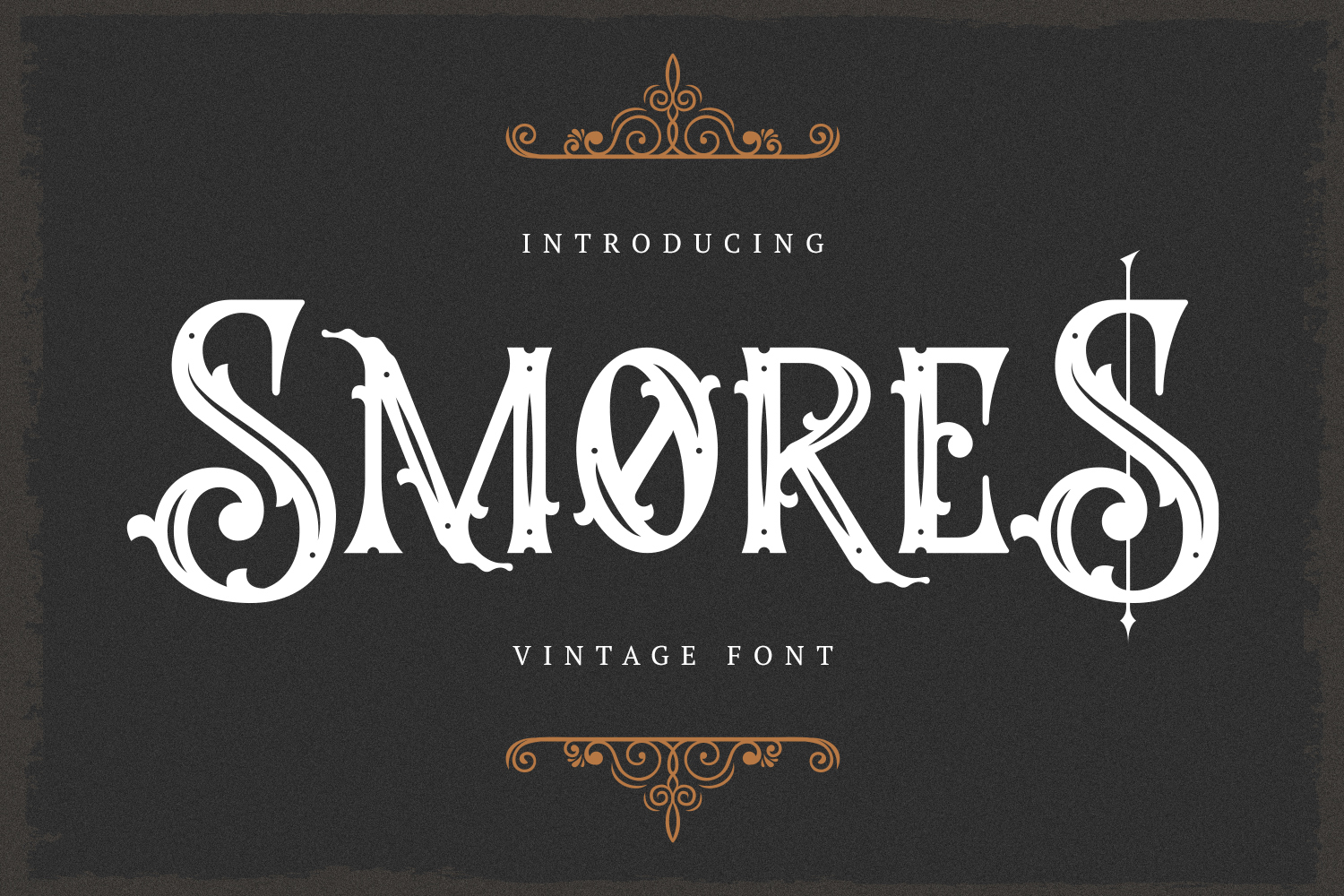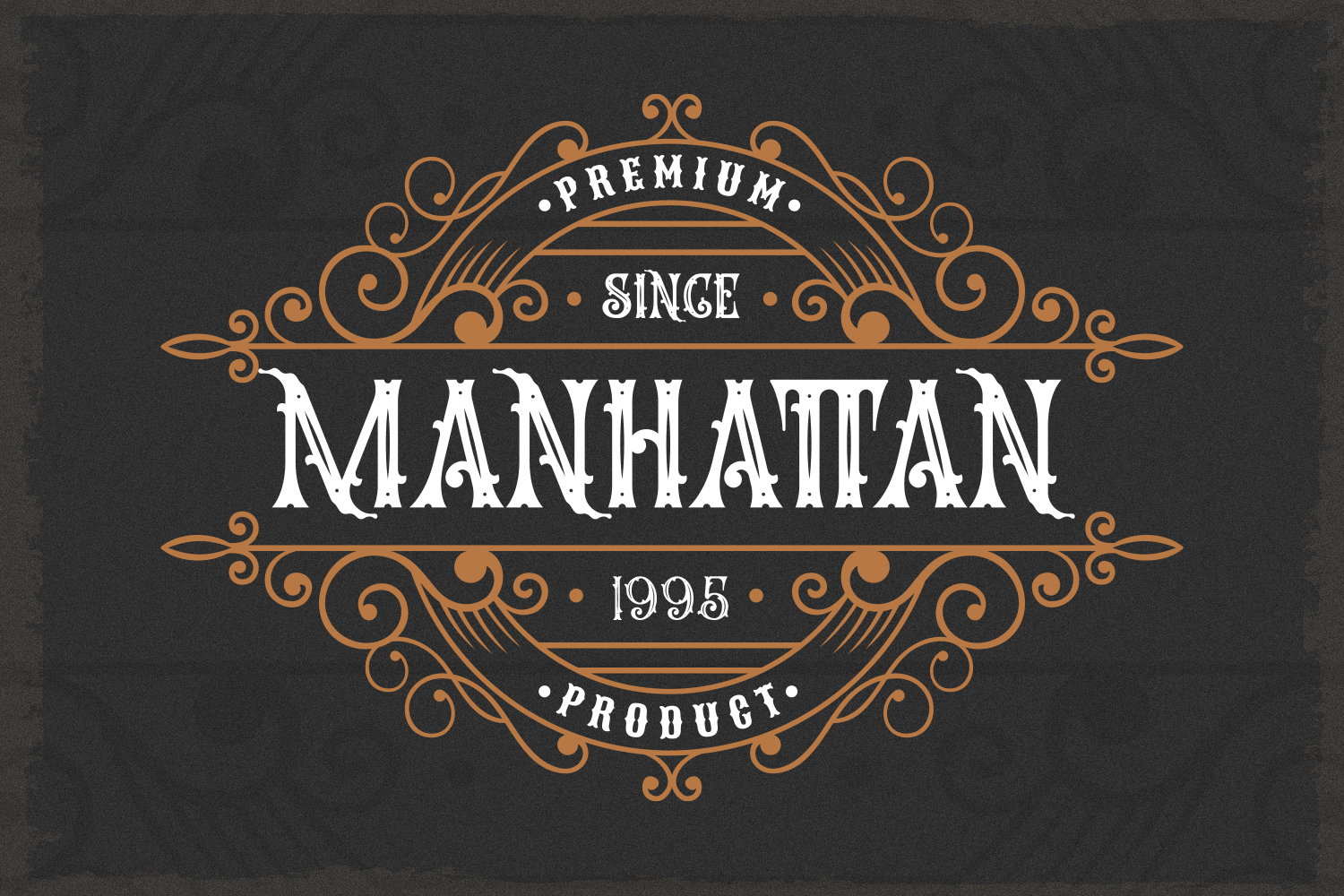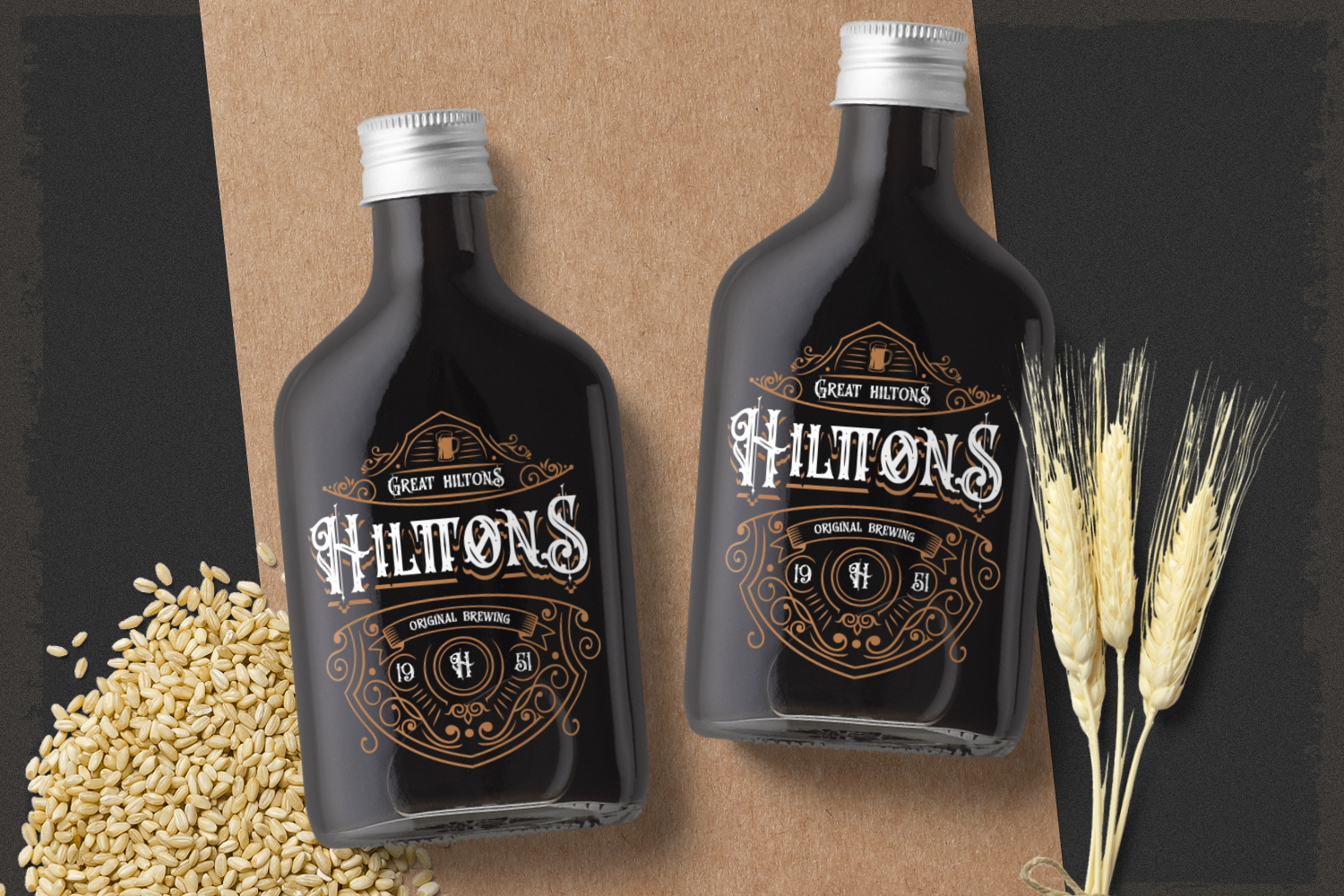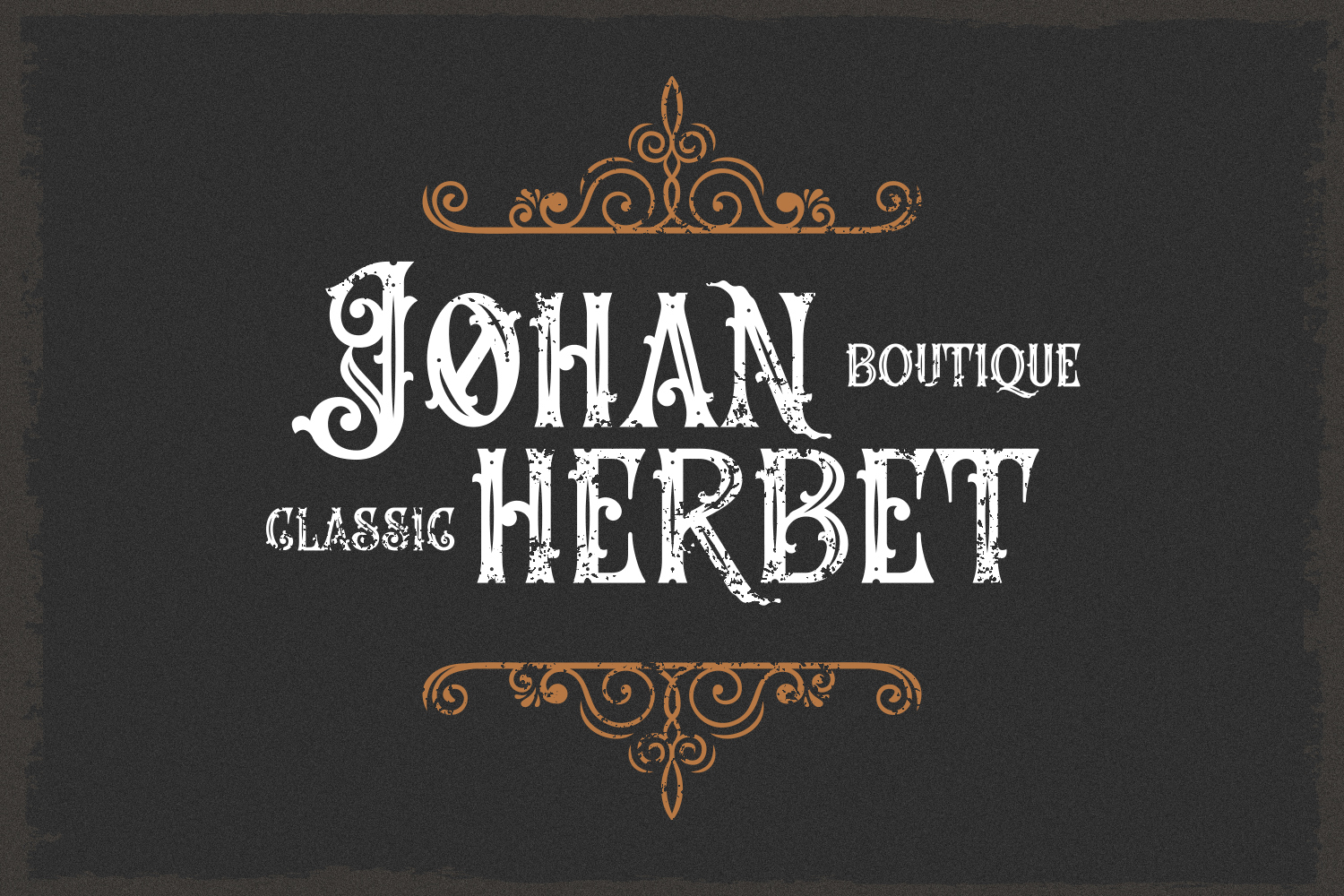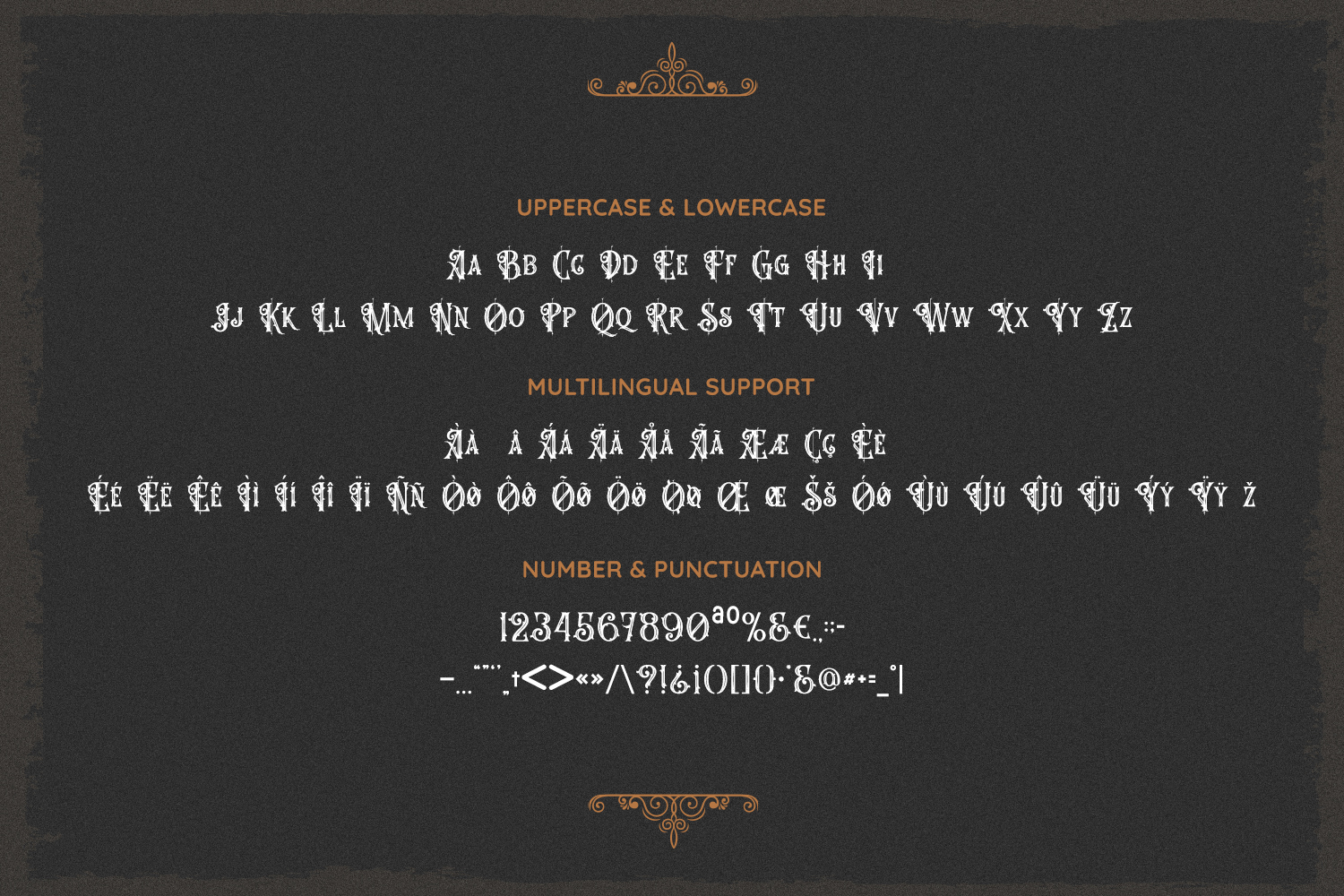
Smores is a bold vintage display font crafted with dramatic Victorian charm and classic decorative flair. Each letterform features ornate curves, cutout detailing, and strong contrast, making it a perfect choice for branding that demands attention. Whether it’s for beverages, heritage apparel, or vintage-style signage. Its distinctive personality shines in logos, labels, and titles that seek to evoke nostalgia and craftsmanship.
Equipped with uppercase and lowercase characters, multilingual support, numerals, and punctuation, Smores delivers flexibility without compromising style. The font’s subtle textured finish and period-inspired alternates make it well-suited for packaging, boutique designs, or artisan goods. Bring back the golden era of typography with this vintage gem.